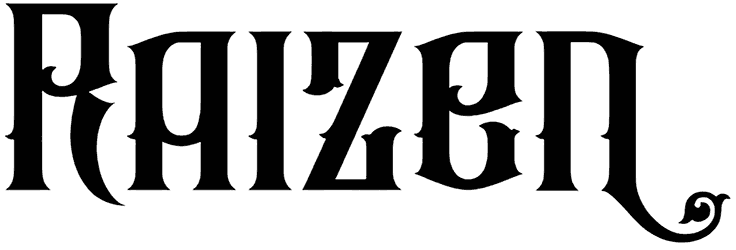
Raizen Font
Raizen is a tattoo-style retro font that also has a traditional style to its excellent design! The bold characters, which are sharp and pointy, have a decorative look. This Victorian font gives you one stunning typography with a powerful, elegant feel.
There aren’t any lowercase letters included in the letterforms provided. Raizen is brilliant for posters, tattoos, branding, logos, movies, and wherever you would like your amazing typography to stand out!